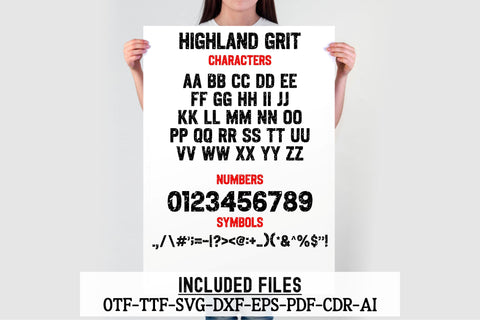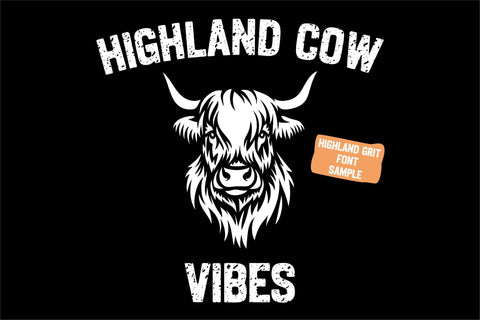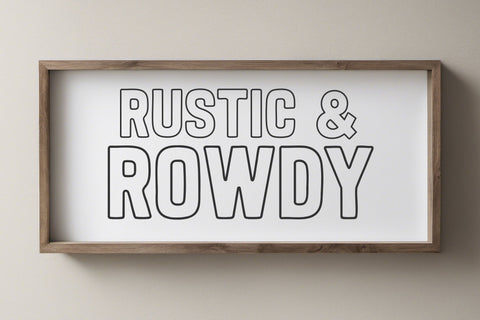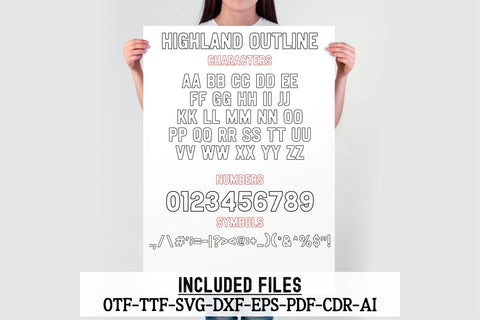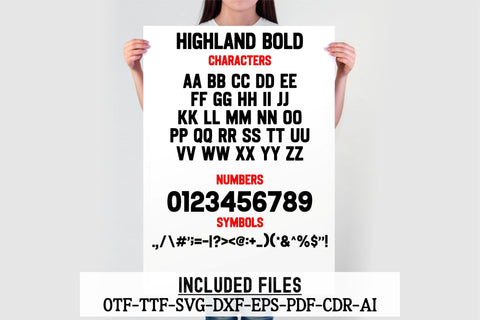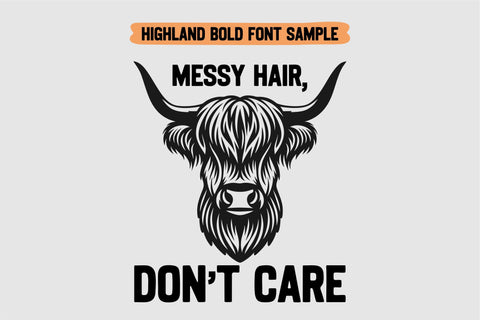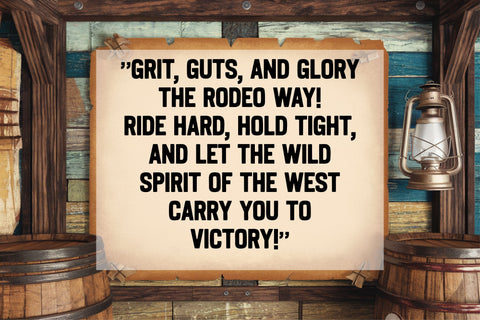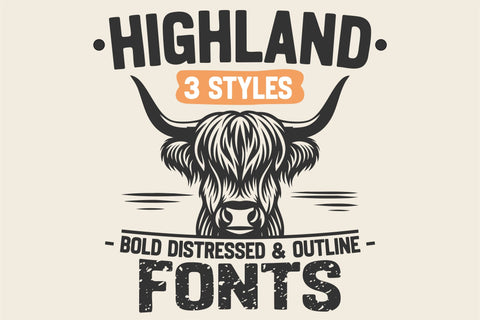
Highland Font Bundle | Western Rustic Vintage Serif Font
The Highland Font Bundle includes three rugged typefaces: Highland Bold, Highland Grit, and Highland Outline. Designed for Western, farmhouse, and rustic projects, this collection adds vintage charm to t-shirts, branding, crafts, and decor.
Each font offers a unique style—solid bold for strong impact, distressed for a vintage feel, and outline for layering or engraving. Ideal for Cricut, Silhouette, Procreate, sublimation, and digital design projects.
✔️ 3 Font Styles: Highland Bold, Highland Grit, Highland Outline
✔️ Full Alphabet (A-Z), Numbers, and Symbols
Perfect for:
✅ Western & Rustic Designs
✅ Farmhouse & Cowboy Decor
✅ T-Shirts & Sublimation Designs
✅ Branding & Social Media Graphics